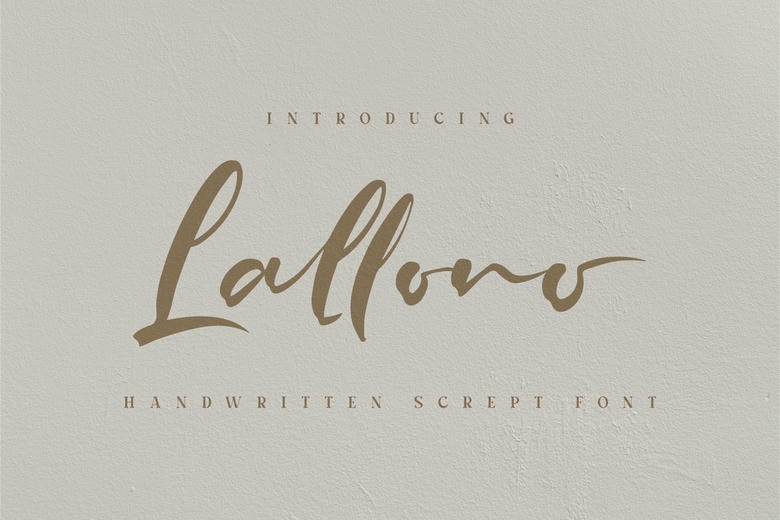
Lallono Font
Lallono is a stylish and graceful script font. It looks ravishing on wedding invitations, thank you cards, quotes, greeting cards, logos, business cards and every other design which needs a personalized touch.
Lallono Handwritten Script Font